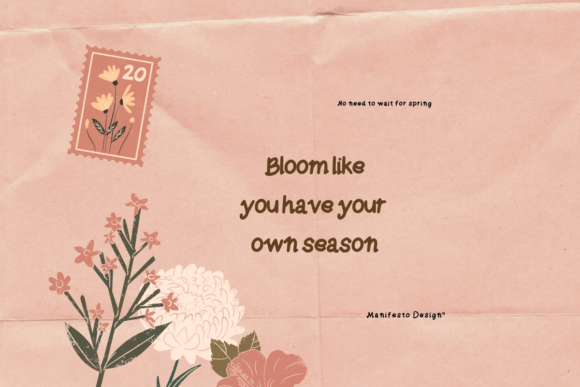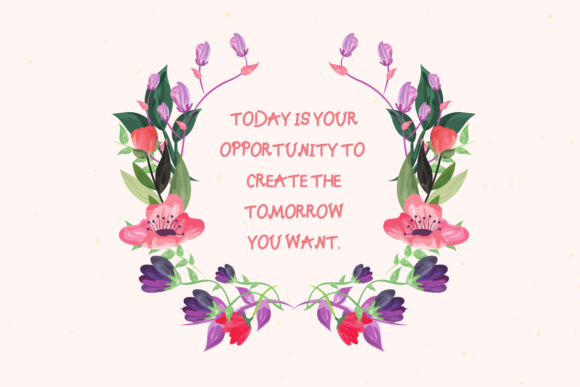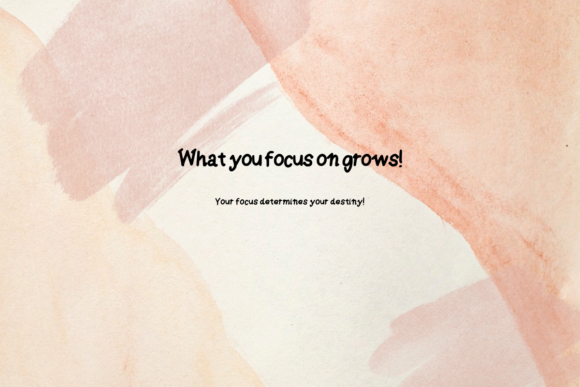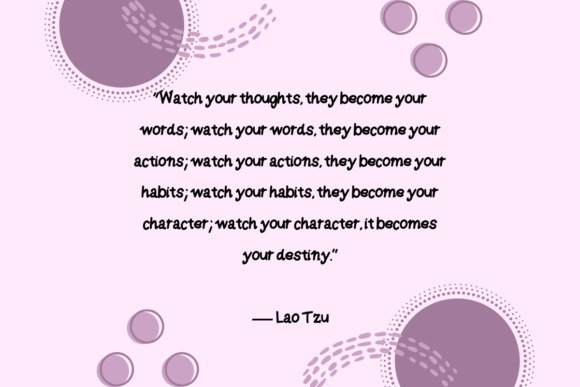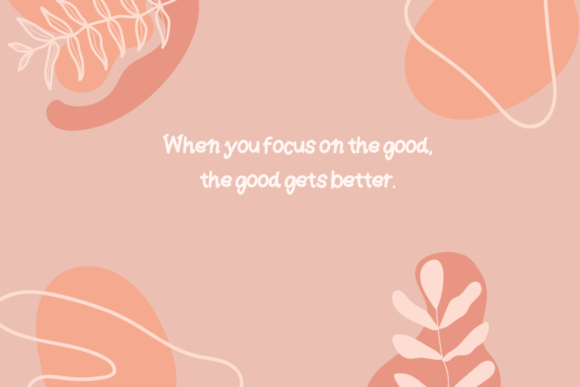
Introduction to Gentle Space Font
Have you ever found yourself stuck on a creative project, desperately searching for the perfect design element to bring it to life? That’s where the magic of fonts comes in – and Gentle Space Font is no exception. This charming, handwritten font is the ultimate design resource for any project that requires a touch of whimsy and personality.
With its high-quality, natural feel and quirky charm, Gentle Space Font is the perfect addition to any creative endeavor. Whether you’re working on a brand identity, a social media campaign, or simply a fun project for personal use, this font is sure to elevate your design to the next level. And the best part? It’s available for free download, complete with a transparent background that makes it easy to incorporate into your design.
Key Features of Gentle Space Font
- High-quality, hand-drawn design ideal for creative projects and design resources.
- Features a unique, ethereal aesthetic with a transparent background, allowing for seamless integration with various design elements.
- Includes a comprehensive character set, covering a wide range of languages and characters, making it suitable for international design projects.
- Perfect for use in digital and print media, including website design, social media graphics, and marketing materials.
Honest Review: Gentle Space Font
I recently had the chance to work with the Gentle Space Font, and I must say it’s been a pleasant experience. This high-quality font is perfect for any creative project that requires a touch of elegance.
- ✨ The font’s clean design makes it easy to read, even at small font sizes.
- ✨ The font supports a transparent background, making it easy to overlay on images or other design elements.
- ⚠️ The font doesn’t come with a complete character set, which may be a problem for some projects.
- ⚠️ The font’s versatility is somewhat limited, making it less suitable for bold or playful designs.
Overall, I’m impressed with the Gentle Space Font’s quality and usability. While it may not be the best fit for every project, it’s definitely a solid design resource to have in your toolkit. If you’re looking for a elegant, high-quality font for your next creative project, the Gentle Space Font is definitely worth considering.
Tips for Getting the Most Out of Gentle Space Font
Experiment with different font sizes, colors, and styles to achieve the perfect look for your creative project. Don’t be afraid to mix and match with other design elements to create a truly unique visual experience.
The Gentle Space Font is perfect for a wide range of applications, including branding, marketing materials, and digital graphics. Its high-quality design and transparent background make it an ideal choice for designers and non-designers alike.
Alternatives to Gentle Space Font
Pacifico is a high-quality script font that is perfect for creative projects, such as wedding invitations, quotes, and social media graphics. It features a clean and elegant design with a transparent background, making it ideal for overlaying on images or videos. When to use: For a romantic and elegant look in your design.
Comparison to Gentle Space Font: Pacifico has a more formal and sophisticated feel compared to Gentle Space Font’s minimalist and modern design. It’s suitable for projects that require a touch of elegance and sophistication.
Great Vibes is a beautiful script font that is perfect for creative projects, such as branding, logos, and packaging designs. It features a fun and playful design with a transparent background, making it ideal for overlaying on images or videos. When to use: For a fun and playful look in your design.